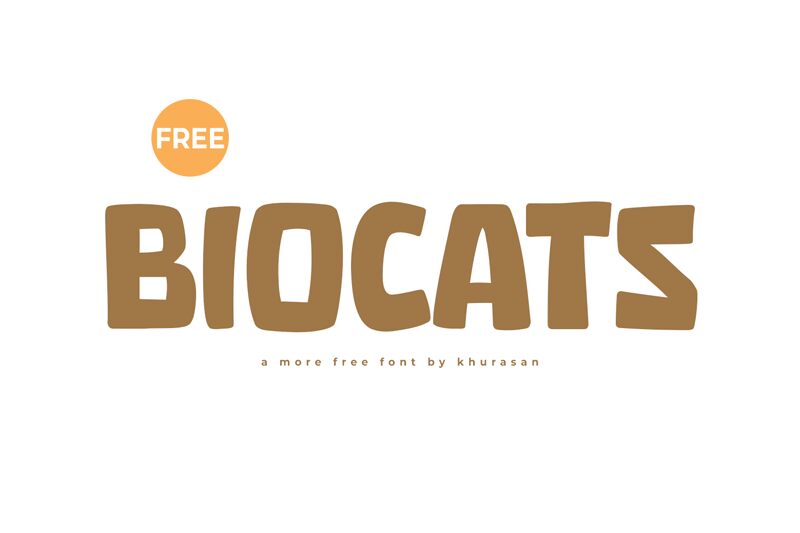
Biocats
Biocats, designed by Khurasan, bursts onto the scene as a playful and energetic display font with a cartoon flair. Its bold weight commands attention while the whimsical twists found in each character add a lively personality to any creative endeavor. Biocats is more than just type on a page-it's an expression of fun, perfect for projects that aim to delight and engage.
Whether it's for captivating children's books, eye-catching logos, or spirited event invitations, this font infuses your work with its unique charm and vivaciousness. Embrace the aesthetic appeal of Biocats to give your designs that extra pop of character they've been missing.